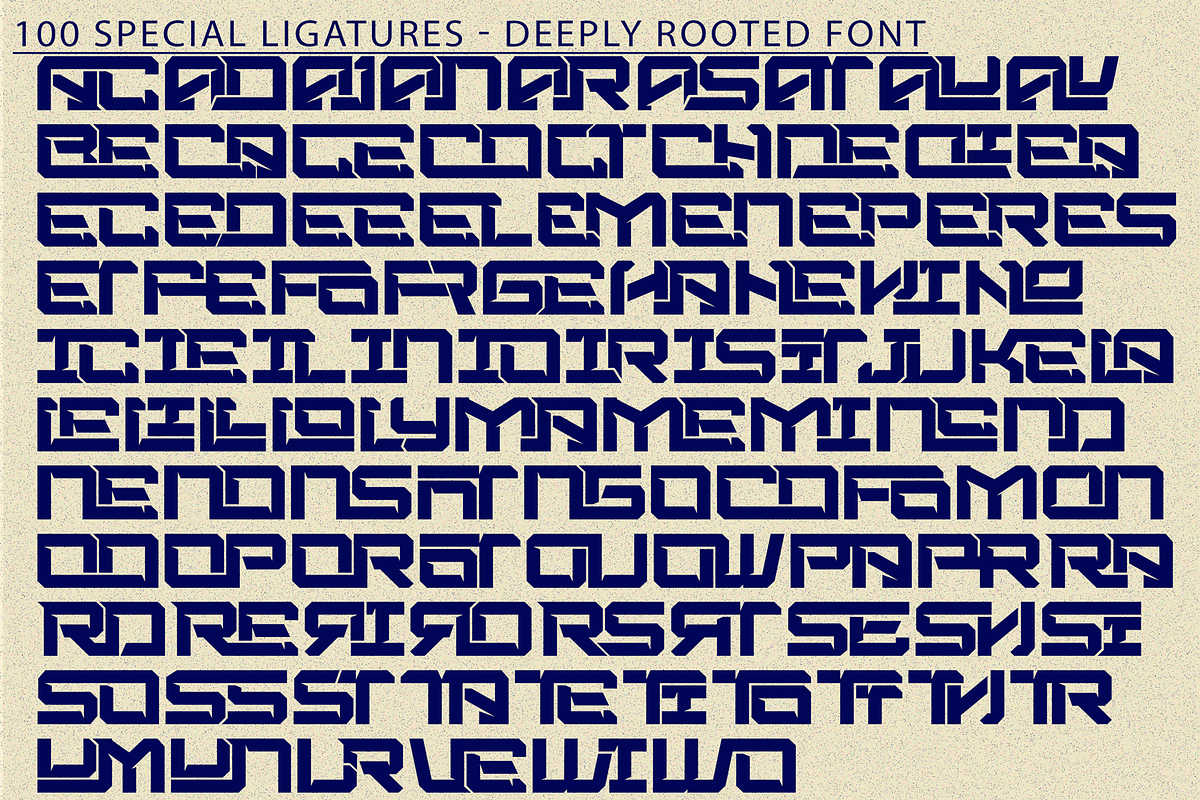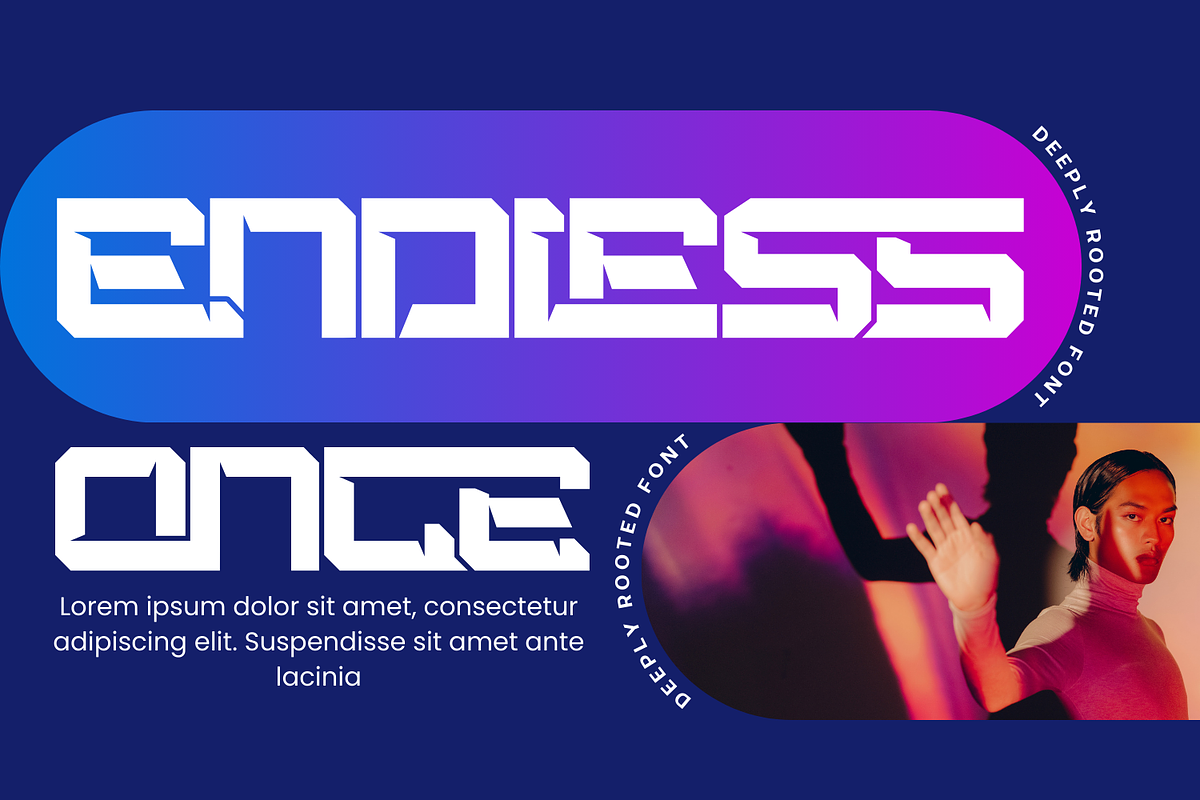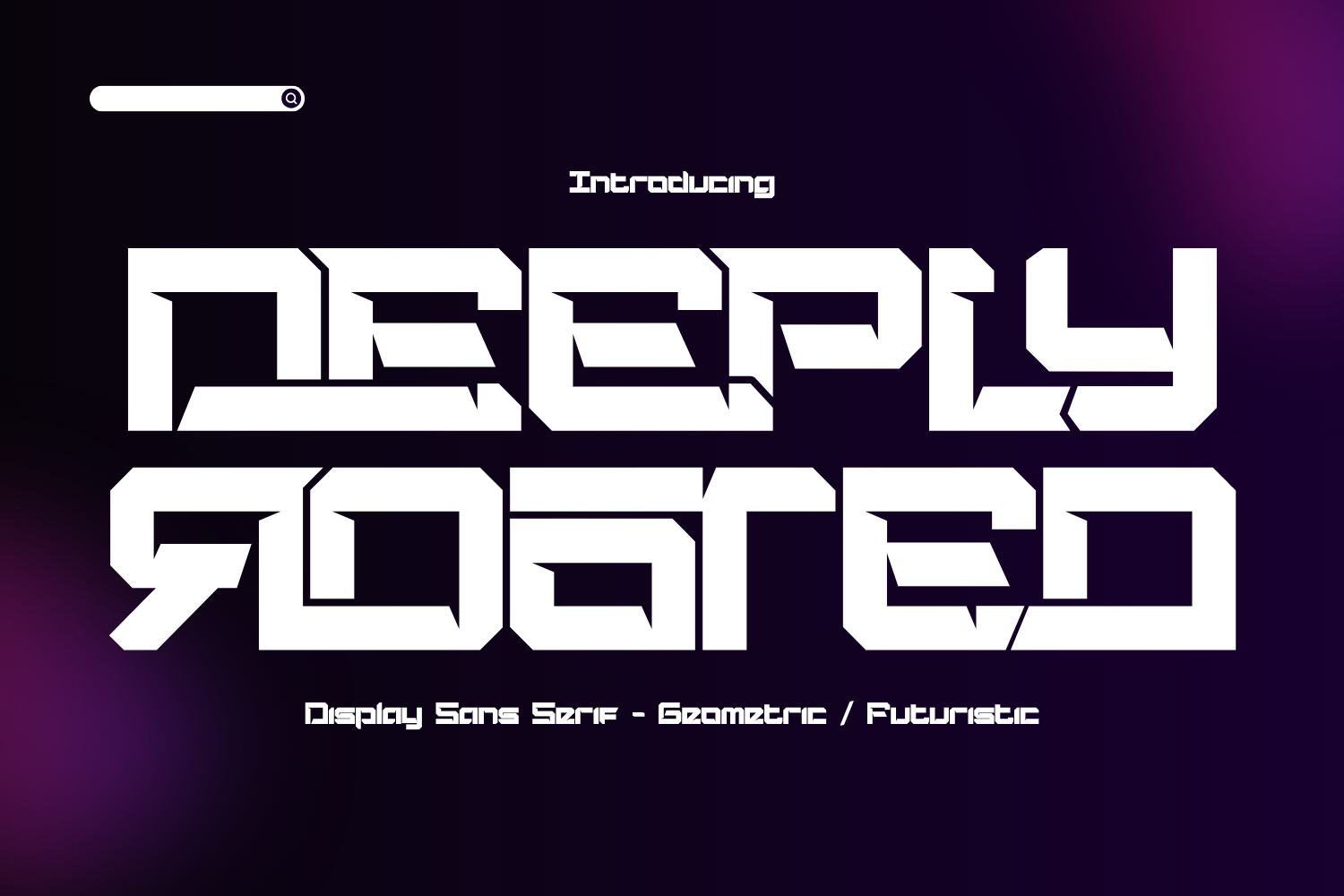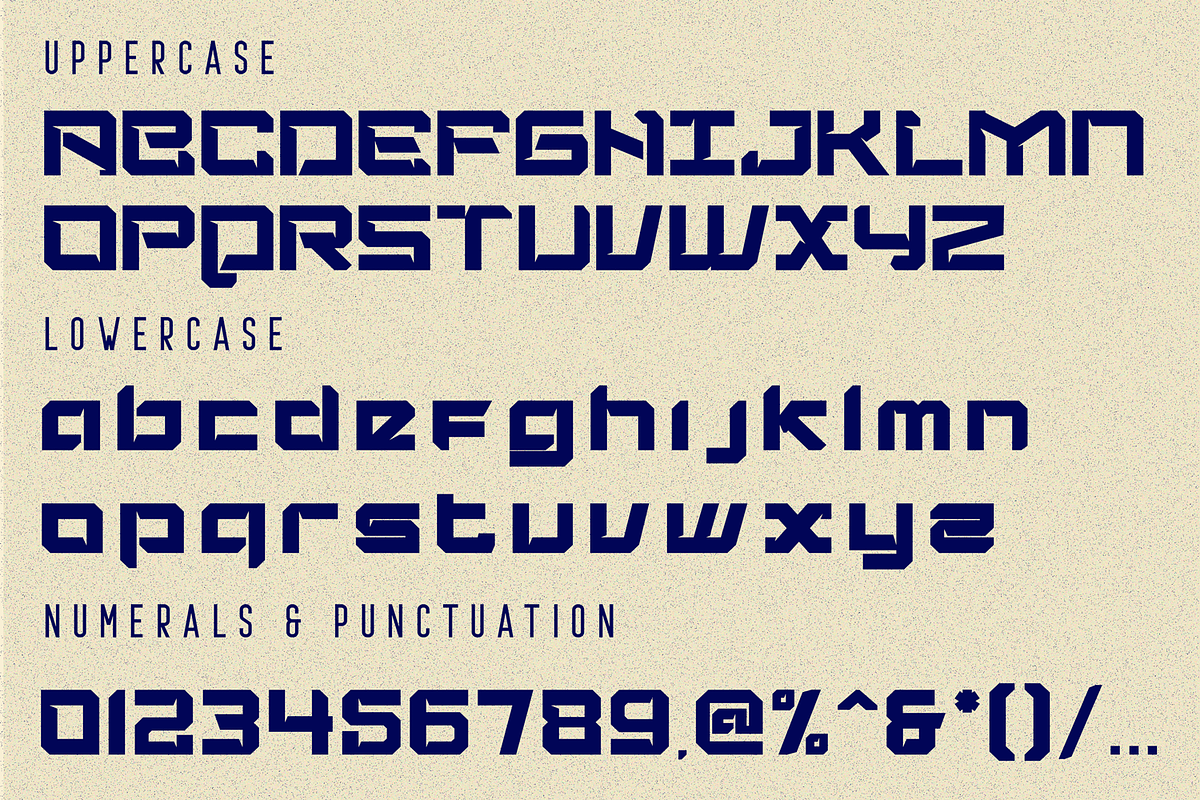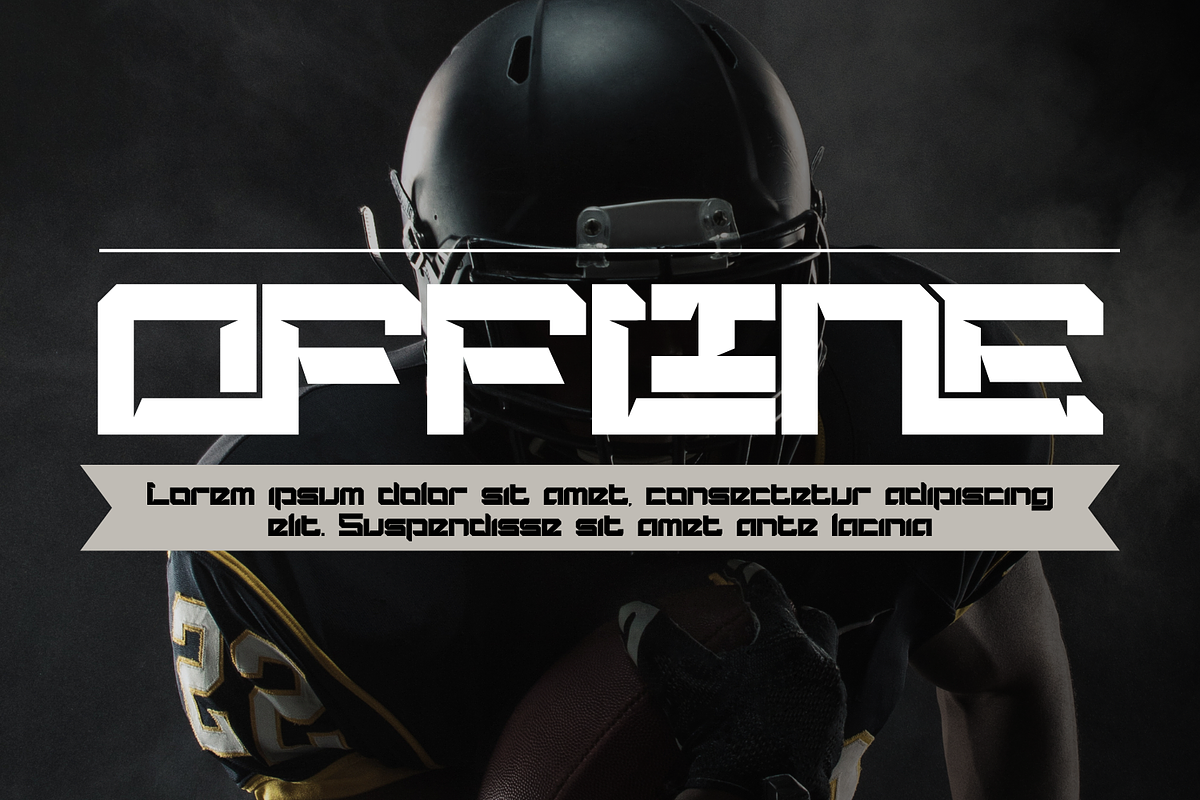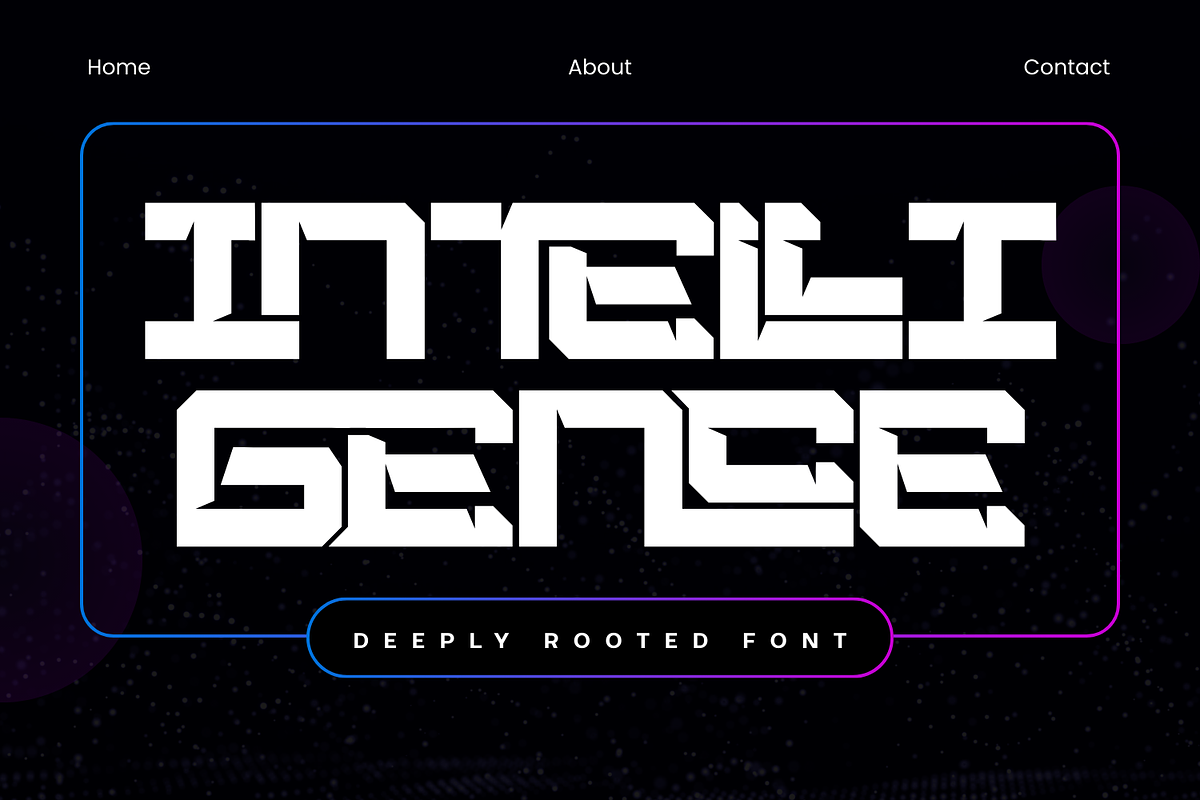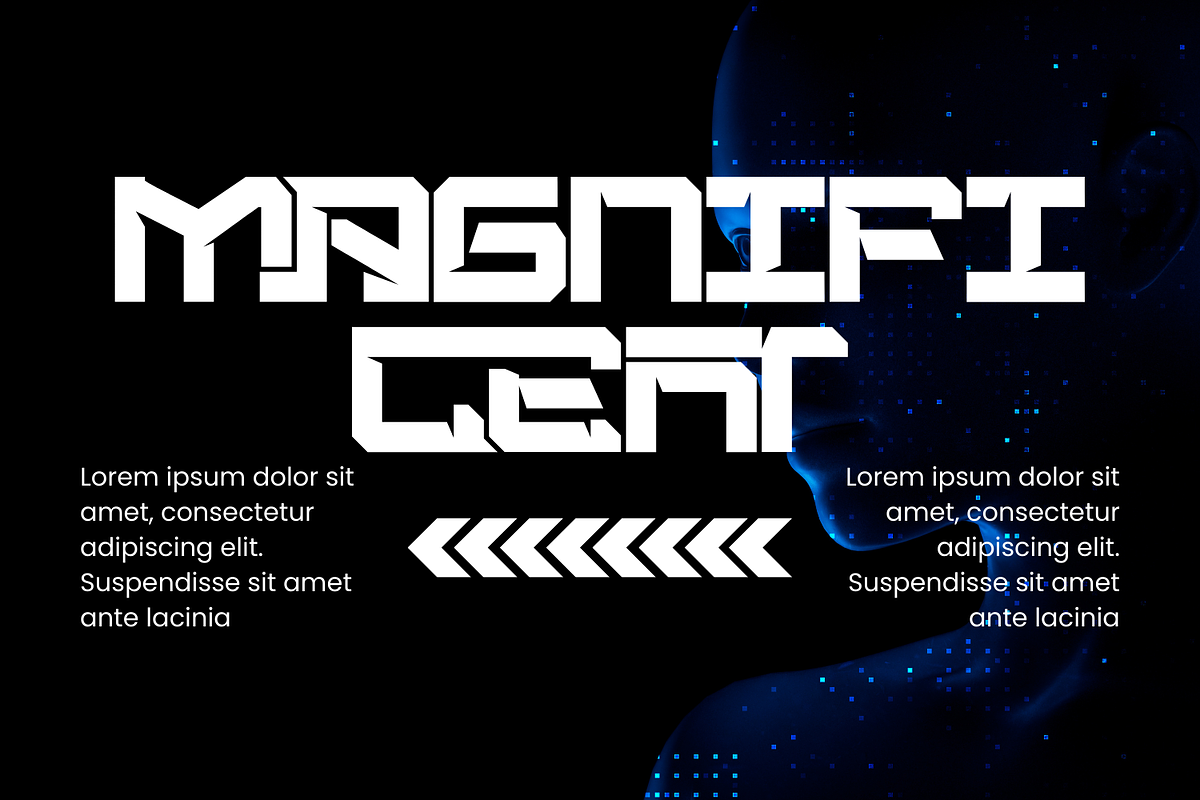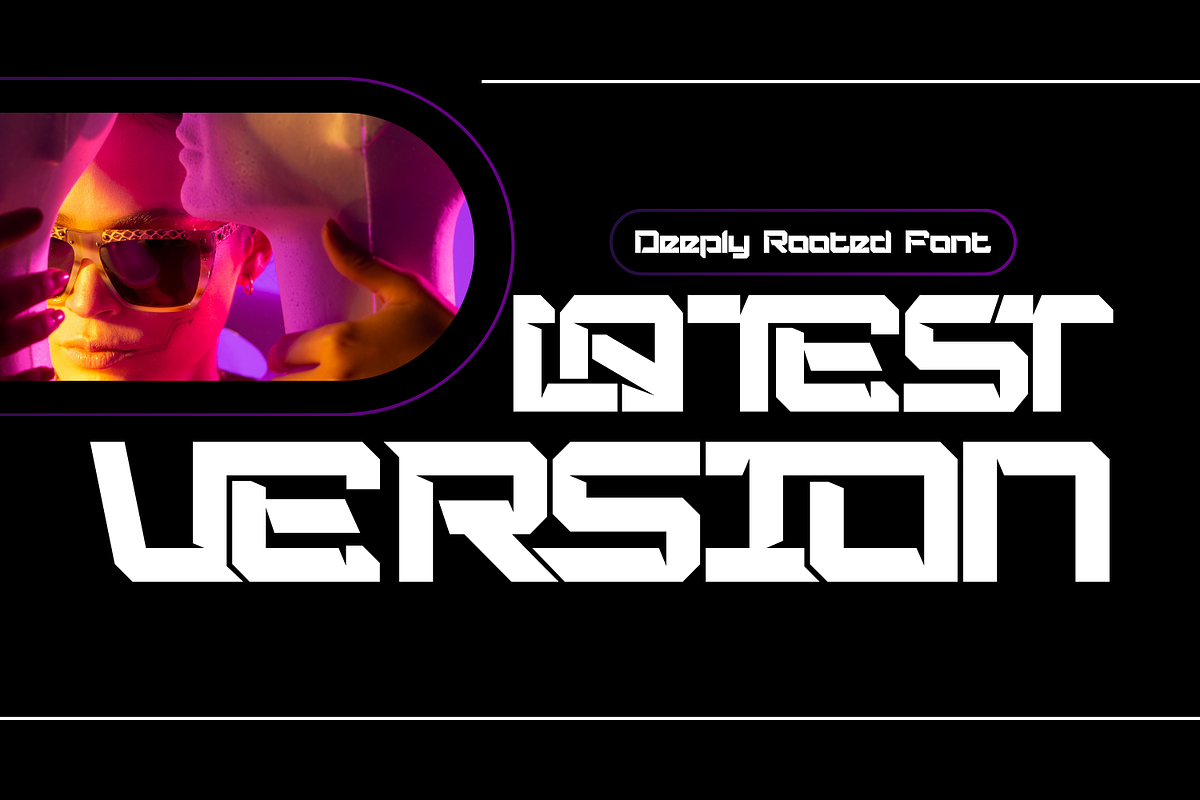
DEEPLY ROOTED - FUTURISTIC FONT
DEEPLY ROOTED - FUTURISTIC FONT is a bold futuristic geometric display sans serif typeface inspired by sci-fi aesthetics, industrial design, and modern technology branding. Built with strong block shapes, sharp angled cuts, and modular construction, this font delivers a powerful and mechanical visual identity. Featuring both Uppercase and Lowercase letters, approximately 100 custom special ligatures, complete Numerals & Punctuation, and extensive Accented characters, DEEPLY ROOTED allows designers to create striking, connected wordmarks and high-impact headline compositions. Its geometric structure, solid proportions, and technical ligature system make
🔤Features:
- Uppercase & Lowercase Letters
- Around 100 Special Ligatures & Alternates
- Accented Characters for multilingual support
🔤About 100 ligatures combined with Stylistic Alternates Font:
AC AD AL AN AR AS AT AU AV BE CA CE CH CO CT DE DI EA EC ED EE EL EM EN EP ER ES ET FE FO FR GE HA HE HI HO IE IC IL IN IO IR IS IT JU KE LA LE LI LL LO LY MA ME MI NC ND NE NG NO NT NS OC OF OM ON OO OP OR OT OU OW PA PR RA RD RE RI RO RS RT SE SH SI SO SS ST TA TE TH TI TO TR TT UM UN UR VE WI WO